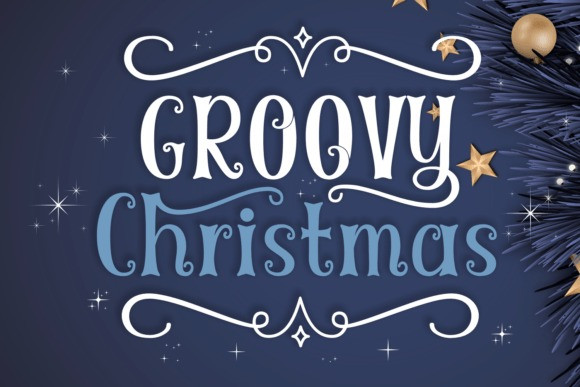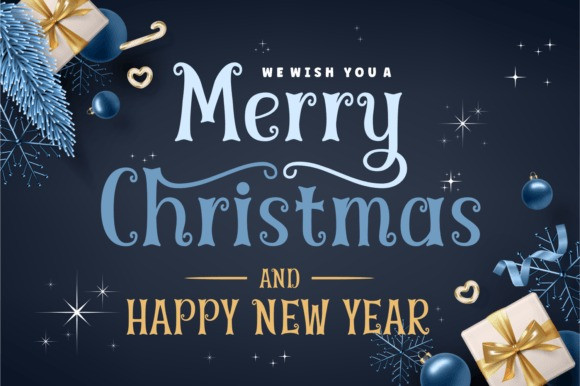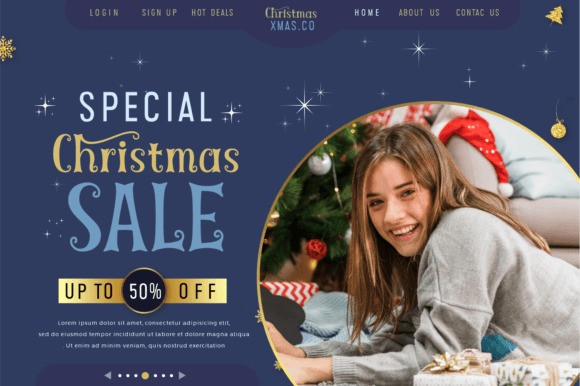
Groovy Christmas Font
Groovy Christmas is a lovely display font with a festive vibe. Add it to your winter holiday projects and you will be amazed by its unique style!